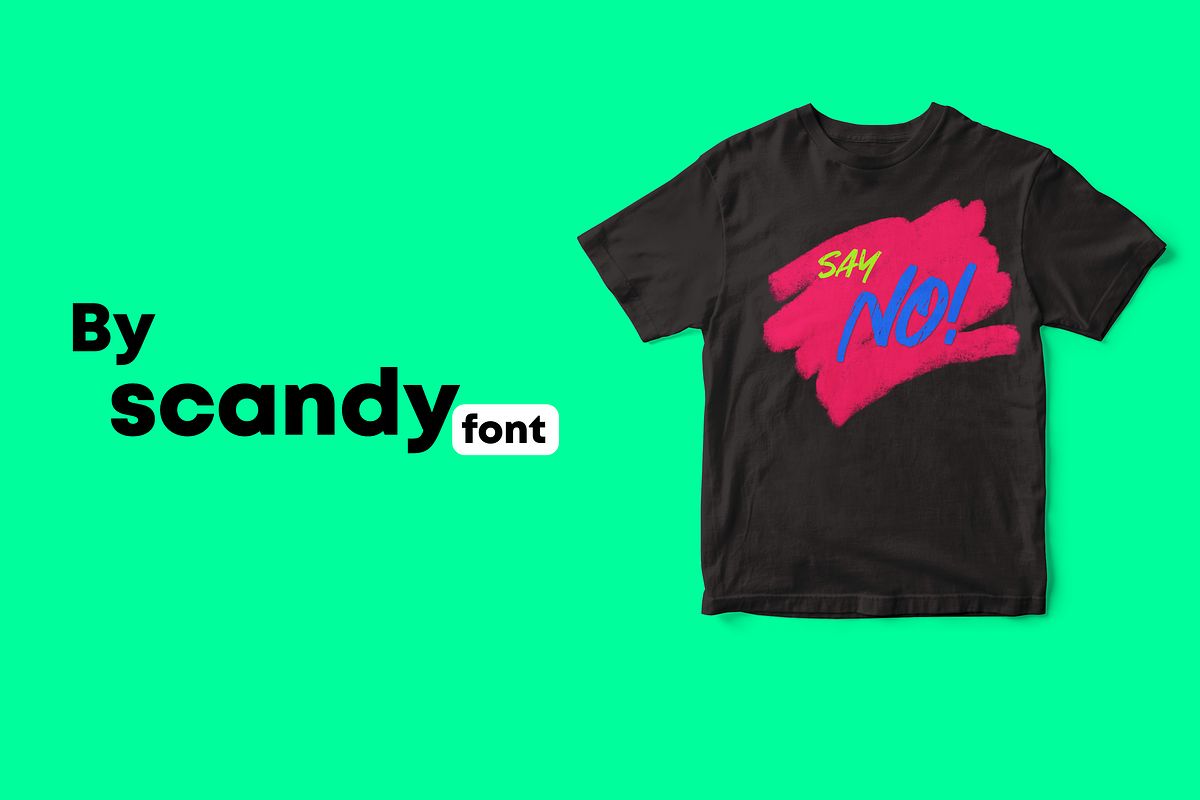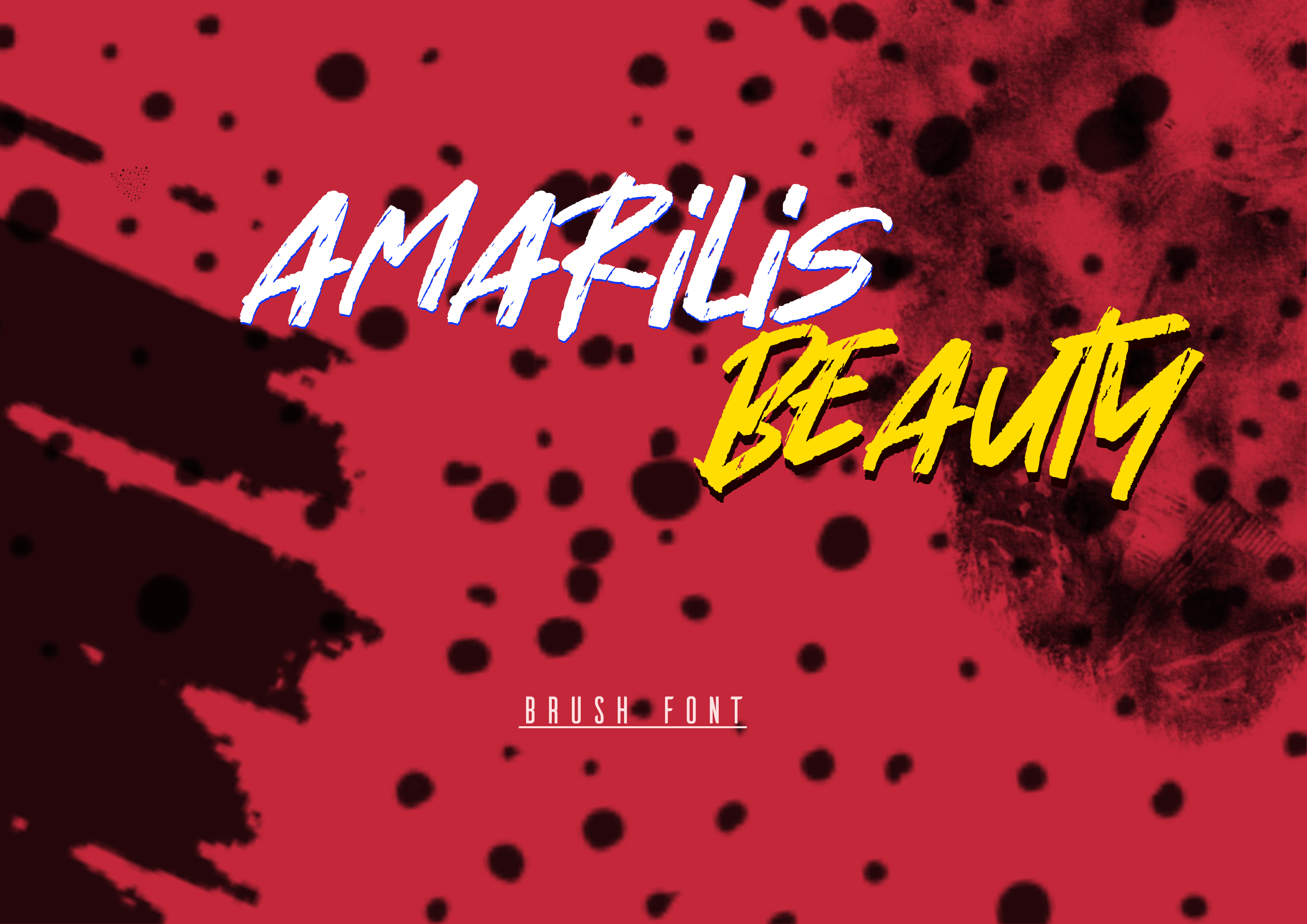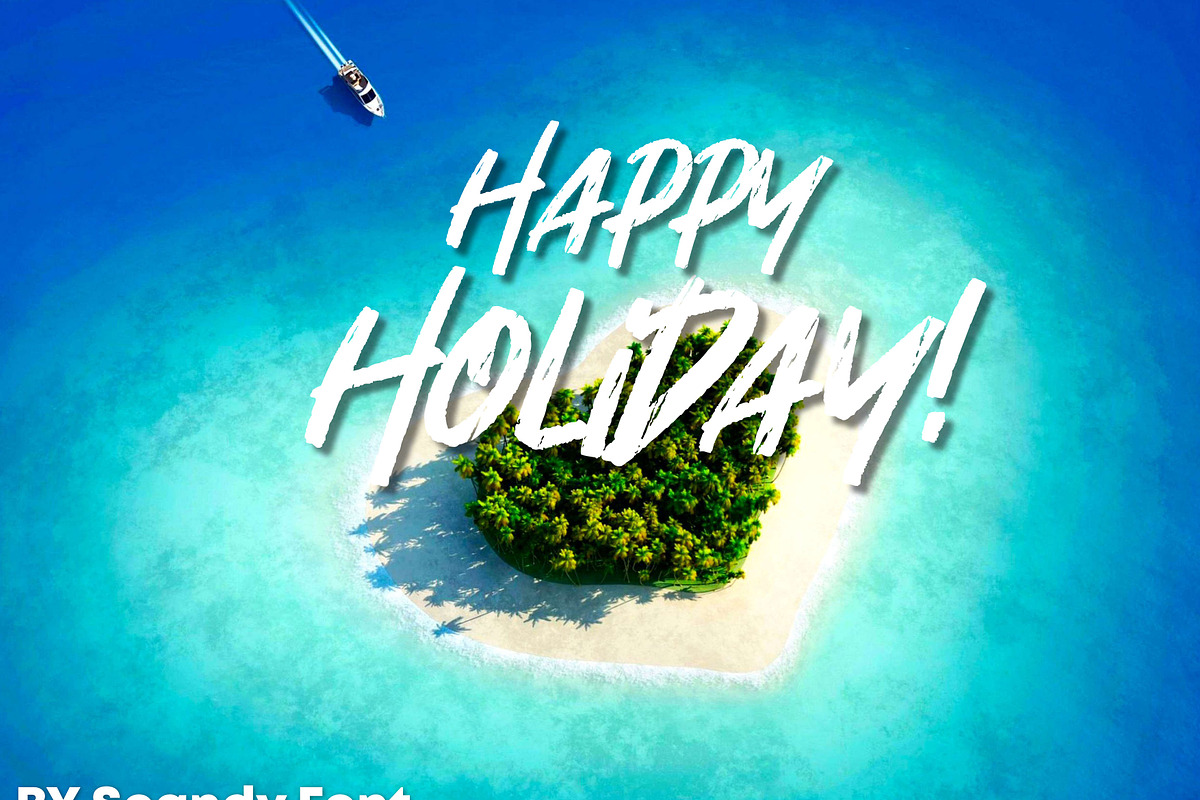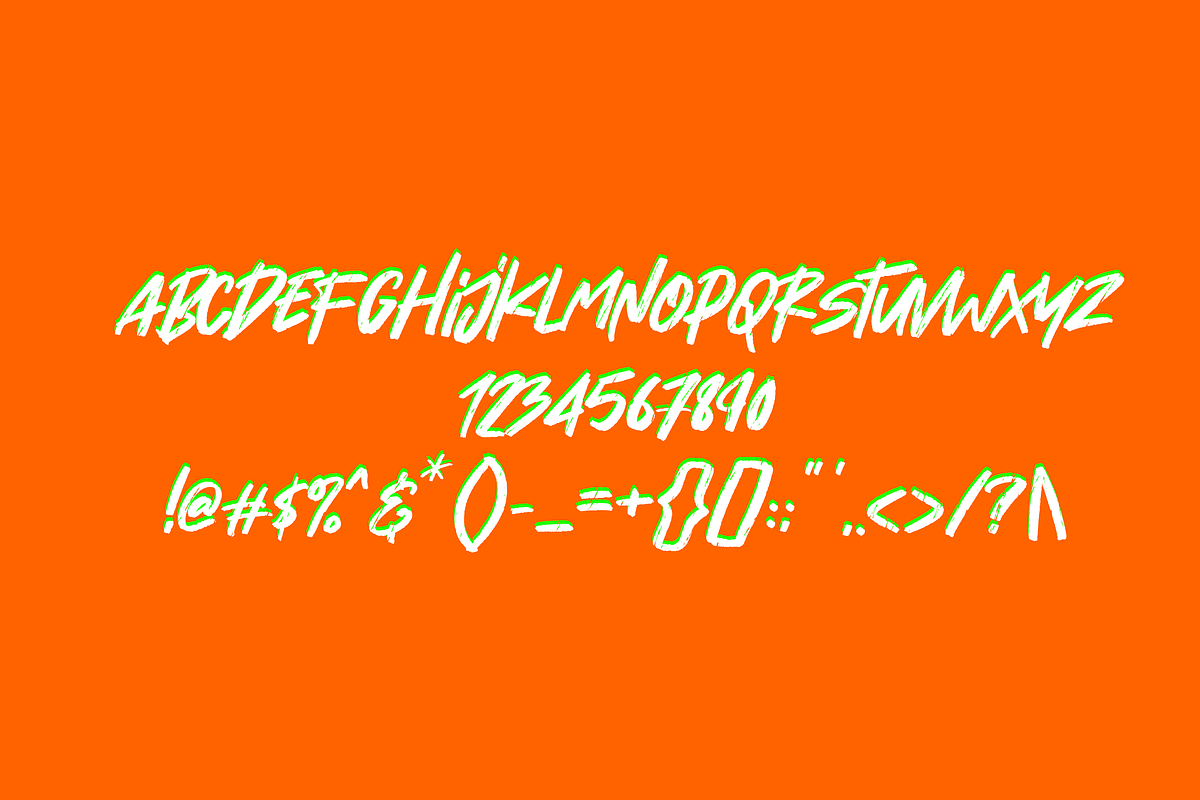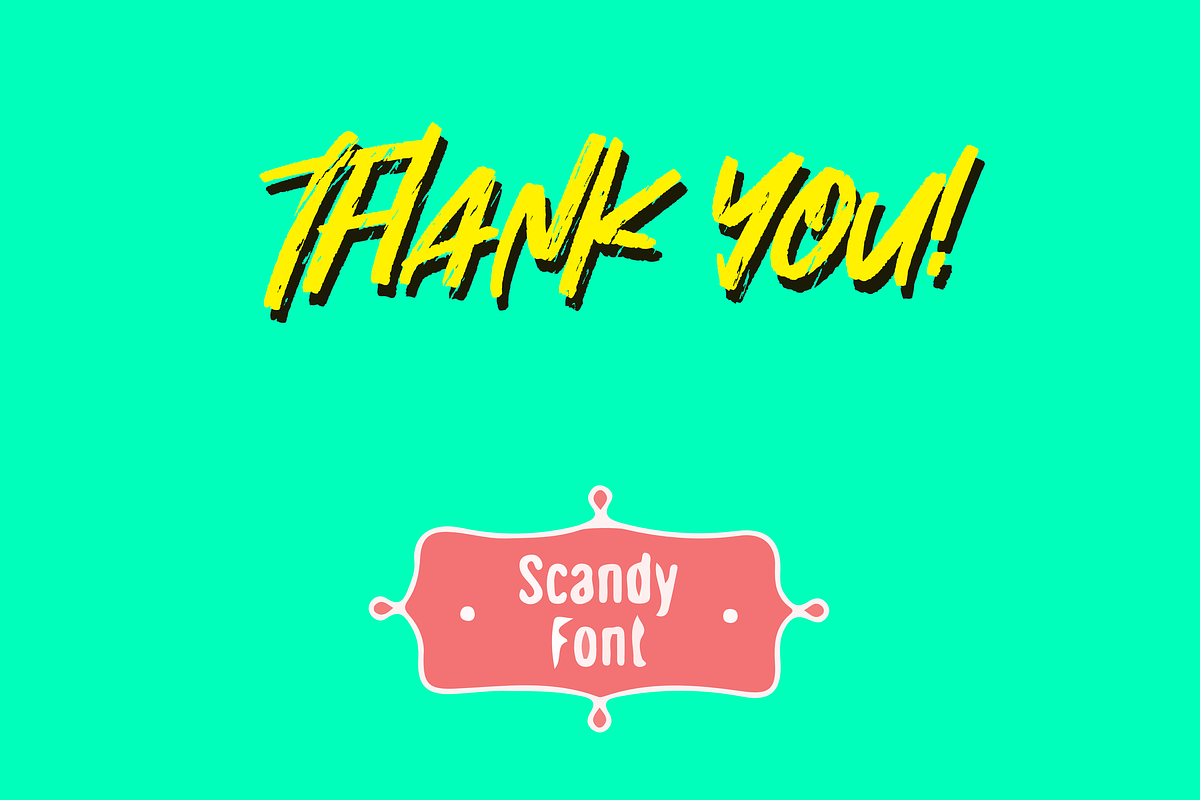
Amarilis Beauty | Modern Brush Font
Amarilis Beauty is a chic + modern Brush font.
This font is perfect for branding, logos, social media, prints, stickers, shirts, svg files and more!
Amarilis Beauty is unique as it can be used for a variety of design styles. It fits in wonderfully for free-spirited, boho designs and also for more classy editorial looks!
There are a lot of fun stylistic alternates available to use with this font. These letters are embedded into the font file and easily accessible in programs such as photoshop and illustrator.